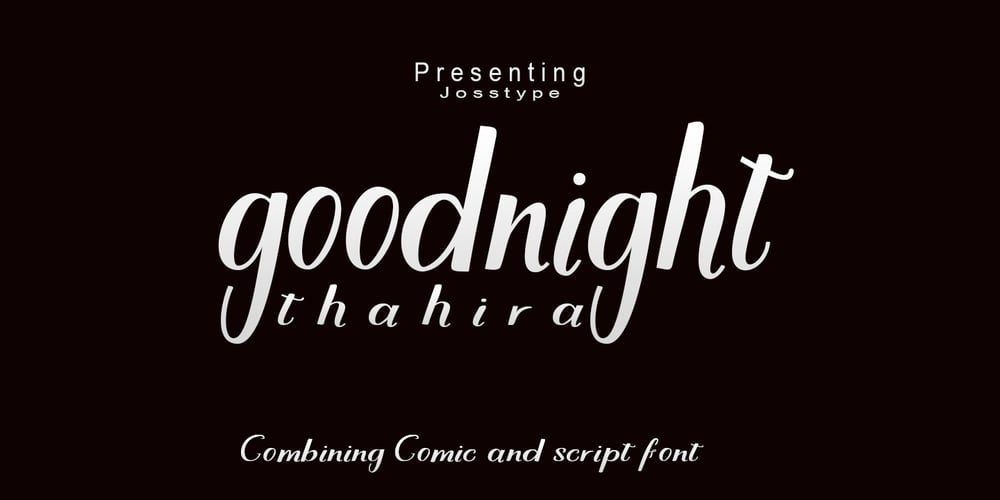
Goodnight Thahira Font Family was designed by Teuku Zulfikar and published by Josstype. Goodnight Thahira contains 1 styles and family package options. hahira A hand brush to write a script, first drawn on paper and then remastered on a computer to provide free brush smooth flowing script, which looks perfectly on an image or as a classy logo.Thahira – A comic script font super clean, simple and elegant work of producing stand-alone pieces sophisticated typography or in combination with a script font. Mailinfo: joelpopon@gmail.com